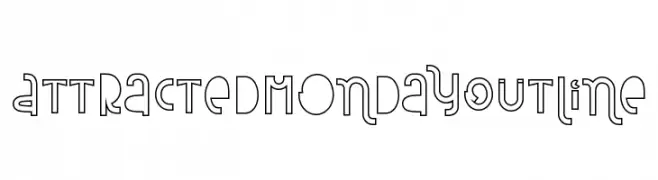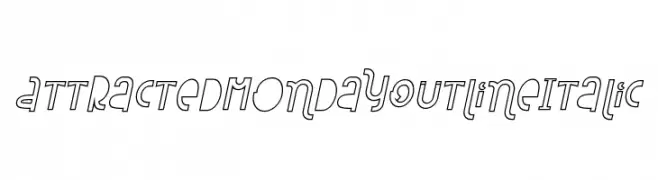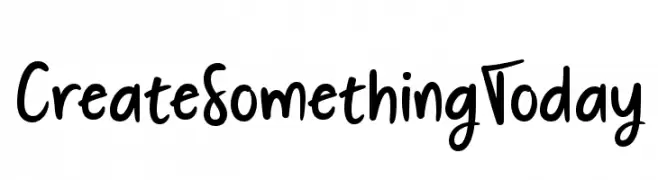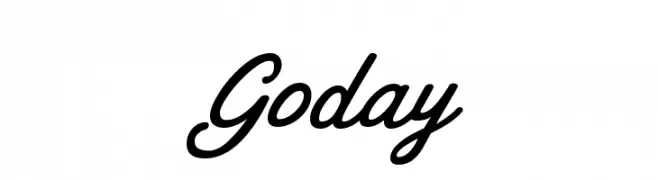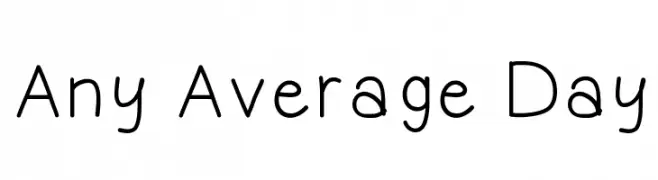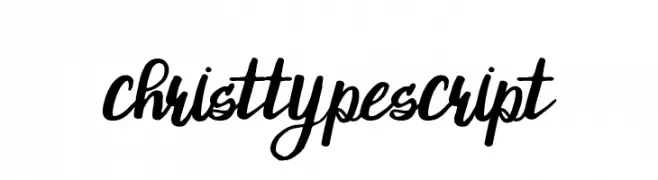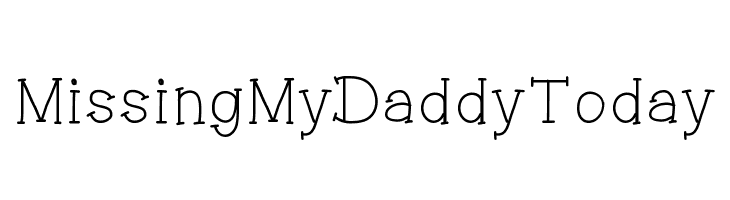
A bold, high-contrast italic font with dynamic and unique character shapes.
A modern, geometric outline font with artistic flair.
A modern, italicized outline font with a playful and dynamic style.
A bold, playful handwritten font with smooth, rounded edges and a lively style.
A playful and casual font with rounded, smooth letterforms.
A lively and dynamic italic font with smooth, flowing curves.
A fluid and elegant script font with smooth, flowing lines.
A playful, hand-drawn serif font with quirky serifs and consistent stroke width.
A clean, handwritten-style font with rounded edges and consistent strokes.
A bold, festive script font with playful holiday icons.